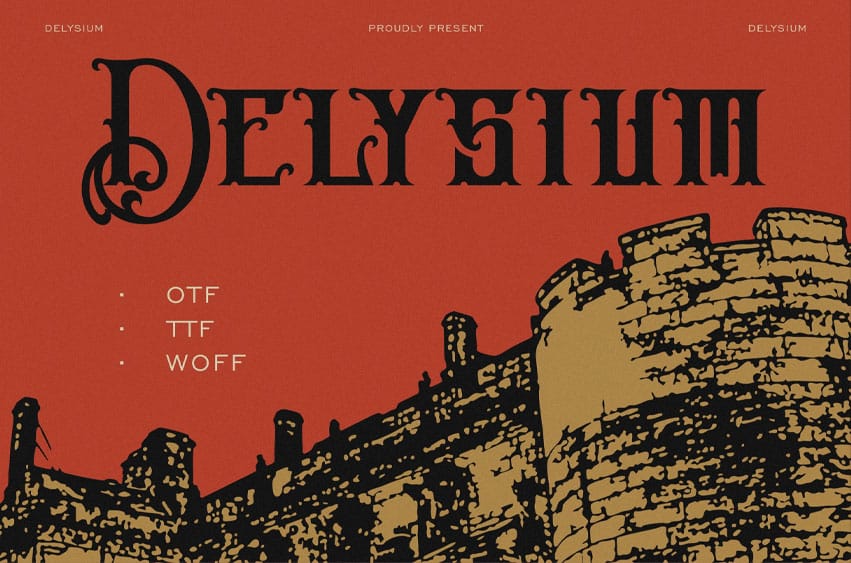
Delysium Font is a luxurious decorative typeface that embodies artistic elegance and timeless beauty. With its smooth curves, refined proportions, and subtle ornamental flair, it evokes a sense of dreamlike sophistication.
Perfect for branding, editorials, and packaging, Delysium transforms ordinary text into a statement of art and refinement.